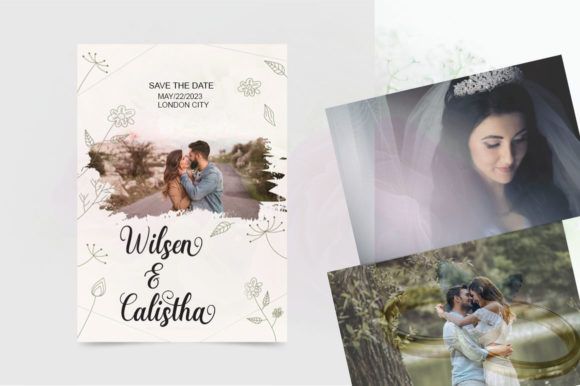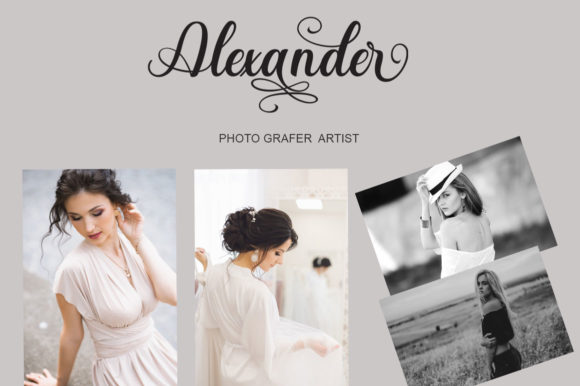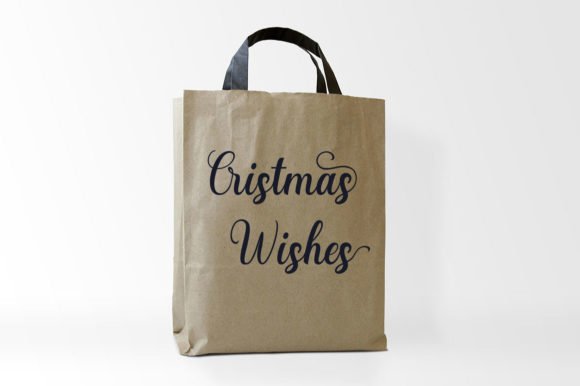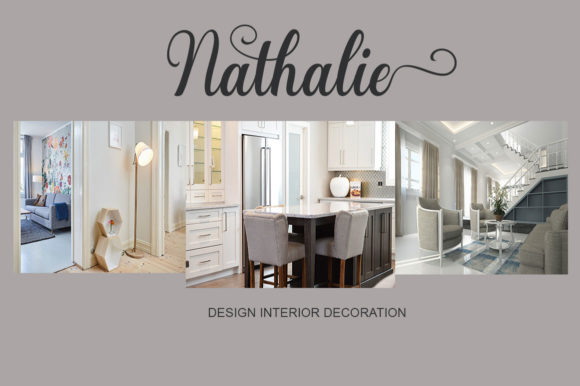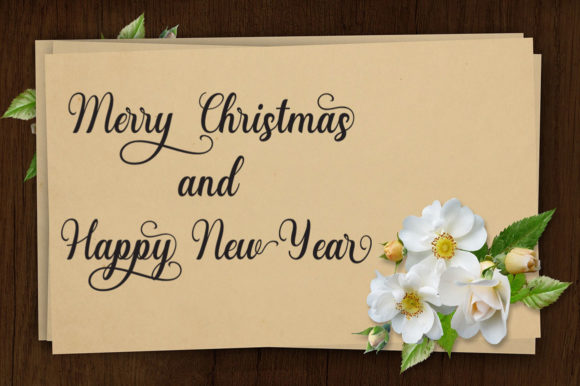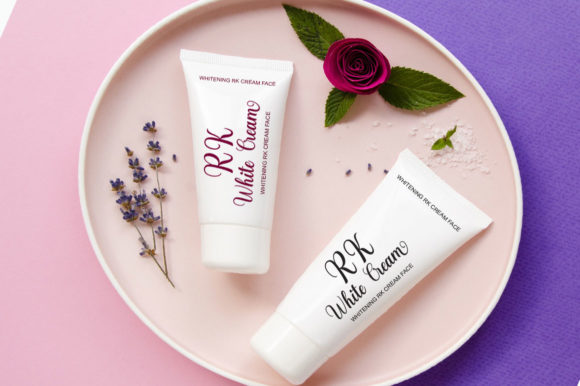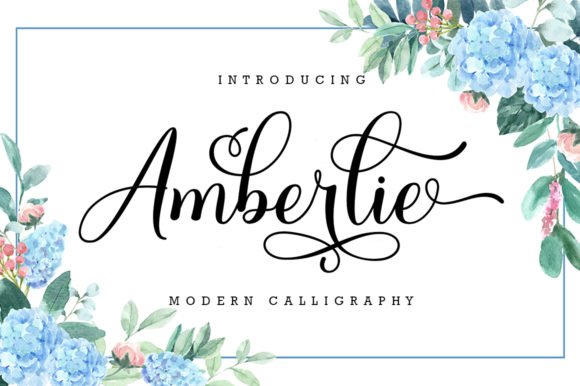
The Perfect Match: Unlocking the Beauty of Handwritten Design
Have you ever stared at a blank page, trying to capture the perfect phrase or quote to express your creativity? For many designers, this moment is a daily ritual, a spark that sets their imagination ablaze. And when the words finally flow, the right font can make all the difference. That’s where the Beautiful Font comes in – a delicate, elegant, and flowing handwritten font that brings a touch of sophistication to any design.
With its beautiful and well-balanced characters, the Beautiful Font is the perfect choice for designers looking to add a personal touch to their work. Whether you’re creating a wedding invitation, a birthday card, or a logo, this font is sure to impress. And with its PUA encoded design, you can access all the beautiful glyphs and swashes with ease, giving you complete creative control.
- Unique Characteristics: The font features elegant, cursive script with subtle flourishes, making it perfect for creative and artistic applications.
- Customization Options: Includes a range of OpenType features, such as ligatures, swashes, and stylistic sets, allowing designers to fine-tune the font to suit their specific needs.
Designer Review: Beautiful Font
I’ve had the chance to play around with the Beautiful Font and here’s my honest take on it.
- Unique aesthetic – The font has a distinct, handcrafted feel that sets it apart from more generic sans-serif fonts.
- Readability – Beautiful Font is surprisingly easy to read, even at smaller font sizes.
- Font pairing options – The font comes with a range of companion fonts that work well together, making it easy to create visually appealing typography.
- Limited language support – Beautiful Font doesn’t support many languages, which might be a problem for projects that require multilingual support.
- Lack of bold/italic variants – While the font has a unique aesthetic, it would be nice to have more bold and italic variants to add some extra flair.
Overall, I think Beautiful Font is a solid choice for projects that require a unique, handcrafted feel. While it has some limitations, it’s still a great option for designers who want to add some personality to their typography.
Beautiful Font is perfect for:
1. Creating eye-catching headings and titles.
2. Adding a touch of elegance to your designs.
3. Creating a consistent brand identity across all your marketing materials.